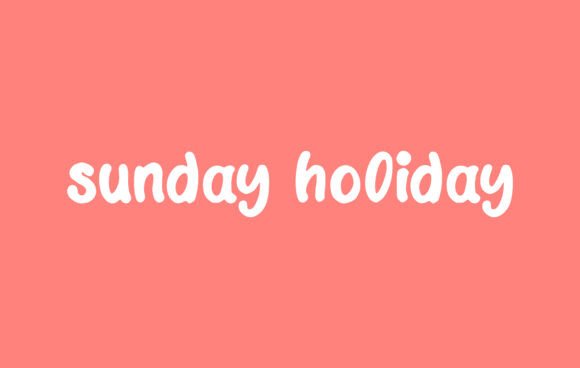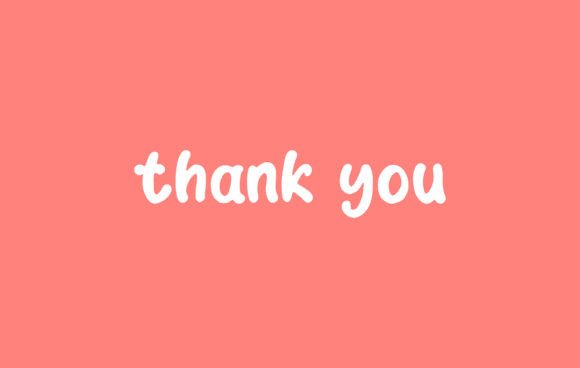
Introducing Adalyn Font: The Ultimate Handwritten Font for Creative Projects
Are you tired of using the same old fonts for your creative projects? Do you want to add a touch of romance and elegance to your designs? Look no further than Adalyn Font, an authentic handwritten font that is sure to become your new favorite. In this article, we’ll take a closer look at Adalyn Font, its features, and how it can elevate your designs to the next level.
What is Adalyn Font?
Adalyn Font is a beautifully crafted handwritten font that exudes a romantic touch. Designed to be both legible and visually appealing, Adalyn Font is perfect for a wide range of creative projects, from magazine headlines to social media graphics, branding, wedding invitations, and more. Its unique and authentic style sets it apart from other fonts, making it an excellent choice for designers and crafters looking to add a personal touch to their work.
Key Features of Adalyn Font
So, what makes Adalyn Font so special? Here are some of its key features:
- Authentic Handwritten Style: Adalyn Font is designed to mimic the look and feel of handwritten text, giving your designs a personal and human touch.
- Romantic Touch: With its elegant and flowing curves, Adalyn Font adds a touch of romance to any design, making it perfect for wedding invitations, love letters, and other sentimental projects.
- Legibility: Despite its handwritten style, Adalyn Font is incredibly legible, making it suitable for both title and body text.
- Versatility: Adalyn Font can be used for a wide range of creative projects, from digital designs to print materials.
Uses for Adalyn Font
Adalyn Font is an incredibly versatile font that can be used for various creative projects, including:
- Magazine Headlines: Add a touch of elegance to your magazine headlines with Adalyn Font.
- Social Media Graphics: Use Adalyn Font to create eye-catching social media graphics that stand out from the crowd.
- Branding: Establish your brand’s identity with Adalyn Font, perfect for logos, business cards, and letterheads.
- Wedding Invitations: Make your wedding invitations truly special with Adalyn Font’s romantic touch.
- Cards and Stationery: Add a personal touch to your cards and stationery with Adalyn Font.
Why Choose Adalyn Font?
With so many fonts available, why choose Adalyn Font? Here are a few reasons:
- Unique Style: Adalyn Font’s authentic handwritten style sets it apart from other fonts.
- Ease of Use: Adalyn Font is incredibly easy to use, even for those without extensive design experience.
- High-Quality Design: Adalyn Font is expertly designed to ensure high-quality output.
In conclusion, Adalyn Font is an exceptional handwritten font that can elevate your creative projects to new heights. Its unique style, romantic touch, and versatility make it an excellent choice for designers and crafters. Whether you’re working on a magazine headline, social media graphic, or wedding invitation, Adalyn Font is sure to become your go-to font. So why wait? Download Adalyn Font today and experience the difference for yourself!